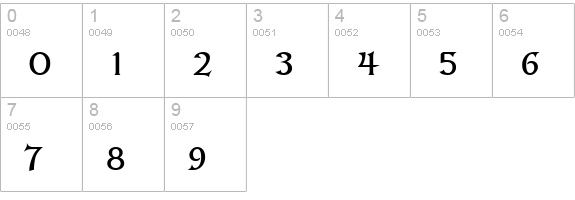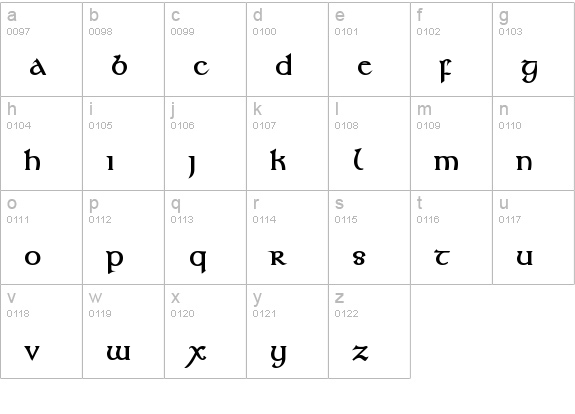
Kelt Bold is a strong, high-contrast variant in the Kelt typeface family \xE2\x80\x94 well suited to headlines, attention-grabbing titles, and strong calls-to-action.
Introducing Kelt Bold, a bold and impactful font that is sure to make a statement. With its strong and commanding presence, this font is perfect for headlines, logos, and any design project where you want to grab attention. But what sets Kelt Bold apart from other fonts is its unique blend of modernity and tradition. It combines clean and sharp edges with a touch of old-world charm, creating a font that is both contemporary and timeless. With its generous proportions and sturdy letterforms, Kelt Bold exudes strength and confidence. Each character has been carefully crafted to ensure legibility and readability, even at smaller sizes. And the best part? Kelt Bold is completely free! That's right, this powerful font is freely available to download at FontsMarket.com. Say goodbye to expensive licensing fees and hello to creative freedom. Whether you're a professional designer or a casual enthusiast, Kelt Bold is here to help you bring your ideas to life without breaking the bank. So why wait? Download Kelt Bold today and let its boldness elevate your designs to new heights. With its versatility and timeless appeal, this font is sure to become a staple in your design toolkit. Experience the power and beauty of Kelt Bold, because great design should always be accessible to all.